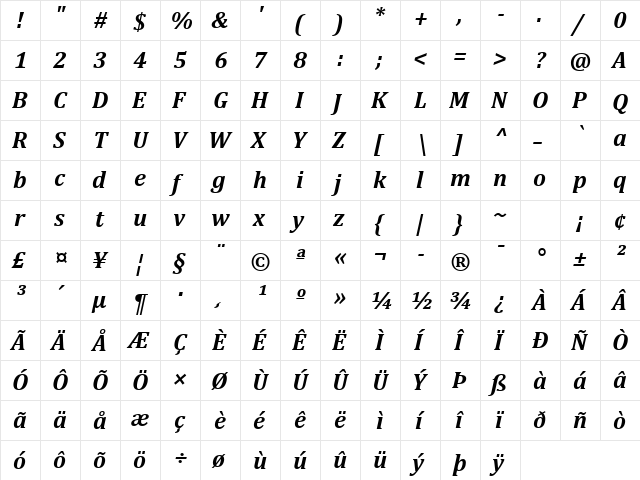
Cambria Bold Italic
| Foundry | Microsoft Corporation |
| Designer | Agfa Monotype Corporation |
Design Context for Cambria Typeface
Cambria takes a measured approach to typography — its balanced proportions and neutral character make it a reliable workhorse for both digital and print work. Its italic angle brings a sense of urgency and motion to the letterforms. The heavy weight commands attention and anchors typographic hierarchies.
Pro Tip: Use Cambria for emphasis, pull quotes, and subheadings where its slanted energy can add rhythm to the layout.